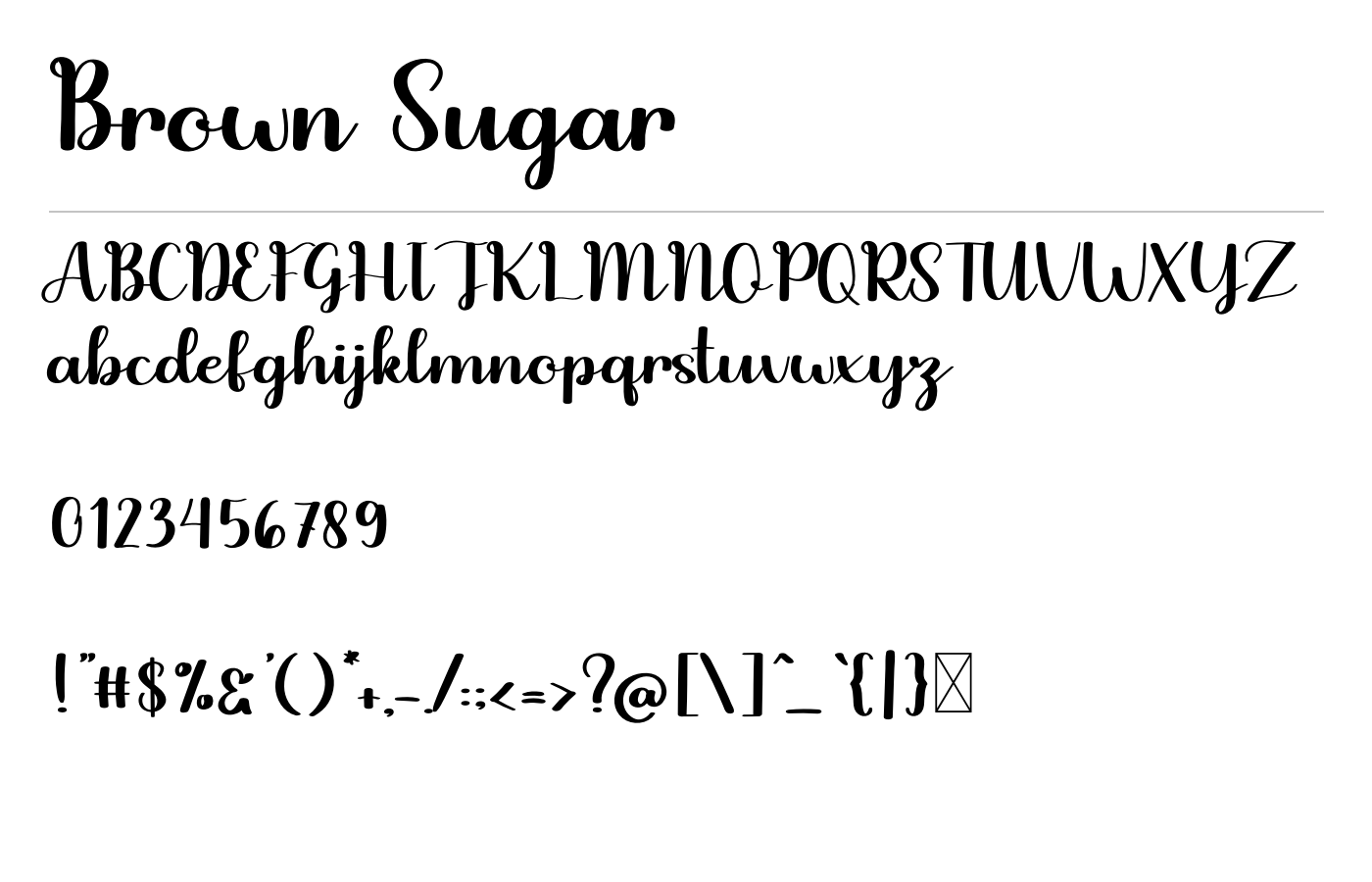
Brown Sugar is a charming script font with a playful and modern flair, featuring smooth, rounded strokes and a medium weight that gives it warmth and approachability. Its lively letterforms, with unique curls and varying stroke widths, create an inviting, handcrafted feel perfect for branding, packaging, and creative headlines seeking a friendly and stylish touch. This font works beautifully for designs that want to convey personality and charm while maintaining readability and elegance.
Brown Sugar Font
About Brown Sugar Font